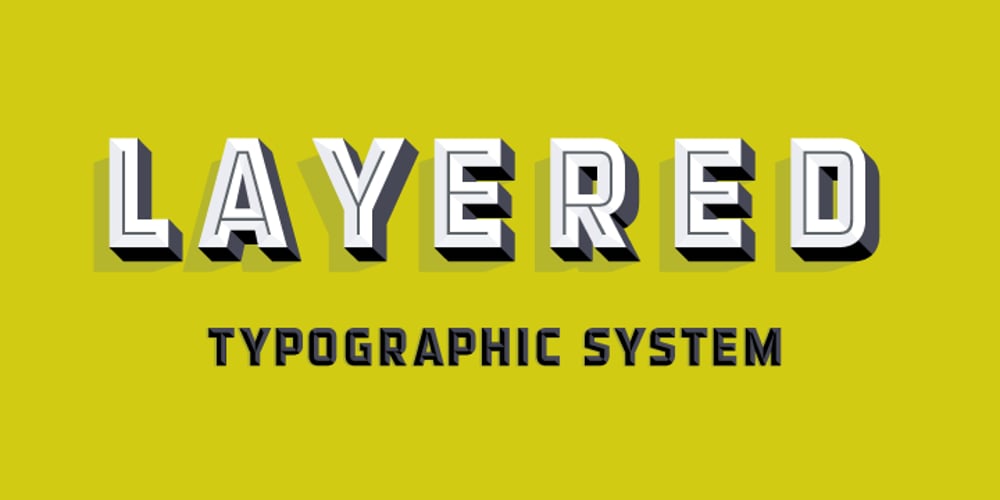
Detroit
Detroit font
Detroit Font Family was designed by Alex Sheldon and published by Match & Kerosene. Detroit contains 1 styles and family package options. Detroit is a 12 font system that can be layered in different ways to create endless classic titling effects used commonly in signage by skilled sign painters and sign makers. Unlike other display fonts, Detroit is not a “one trick pony” that produces the same effect over and over. Detroit’s layer combinations give you complete control in producing styles like inline, outline, collegiate, drop shadow, 3D, convex, and bevel. It’s sturdy gothic base can be used alone and/or allows you to plot out titles and adjust leading, kerning, and alternates. Each font contains the same metrics, so when your title is set, copy and paste-in-place to create layers of different weights/styles to build out your desired effect. Some fonts are clearly dependent on layer stacks to create desired effects, which is why certain fonts in this family are not available for individual sale. Detroit works great in any graphics application that allows you to utilize layers. Sign shops take note: this font system allows you to create rich sign lettering effects for vinyl cut signs without editing the font itself. Each font comes with a free companion PDF for those who would rather “handset” these layers. PDF’s will contain the fonts you purchase in an outlined vector stack. Advantages to using a handset method include: 1. Adjust kerning, leading, size, and spelling by dragging stacked layers opposed to making changes in every font layer. 2. Visualizing letter styles in a full stack. 3. Utilizing global color. 4. Vector curves. 5. Better aliasing control. 6. Font management & installation of font software is not required.